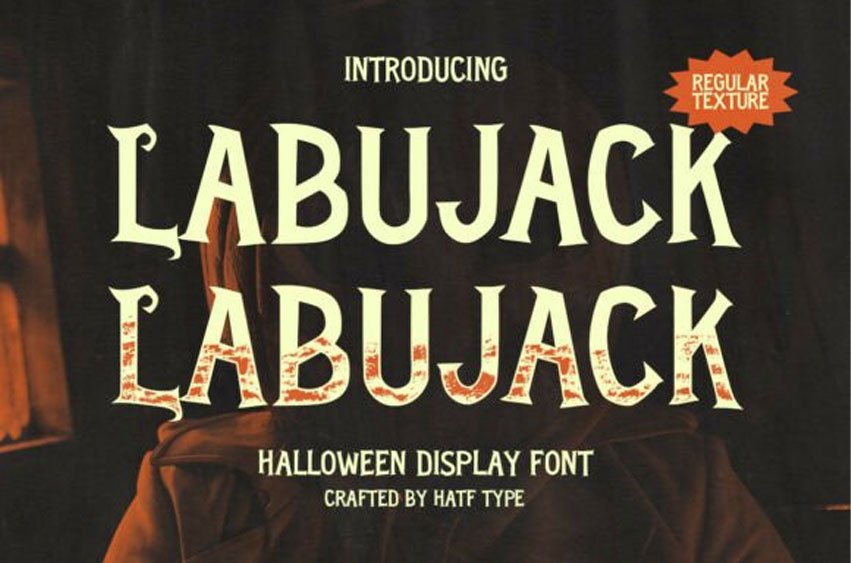
Labujack Font Unleash the thrill of Halloween with LABUJACK, a display font that echoes with phantom whispers and the eerie glimmer of jack-o’-lantern’s light.
Drawing its inspiration from chilling darkness and haunting tales, this font introduces two engaging styles:
LABUJACK Regular – With its bold, undulating strokes, this variant reverberates with an old-timey, spine-chilling aura, making it a perfect choice for retrospectives of terror or compellingly vintage posters.
LABUJACK Texture – A roughened, textured alternative that embodies the timeless charm of scrawling handwriting on the cobweb-laced walls of a forsaken manor.
Both styles imbibe a traditionally spooky ambiance without sacrificing the whimsical warmth of All Hallows’ Eve.
LABUJACK is not just a font; it’s an invitation to a sinister ball, an ideal choice for mesmerizing horror movie posters, Halloween party cards, engrossing mystery book jackets, gothic-inspired packaging, and an array of artistic ventures that yearn for an authentic shiver down the spine.
Artfully crafted to strike the perfect harmony between distinctive outlines and striking readability, LABUJACK stands primed to take center stage, ignition to your untamed creativity in any shadowy, enigmatic, or retro horror-themed undertaking.